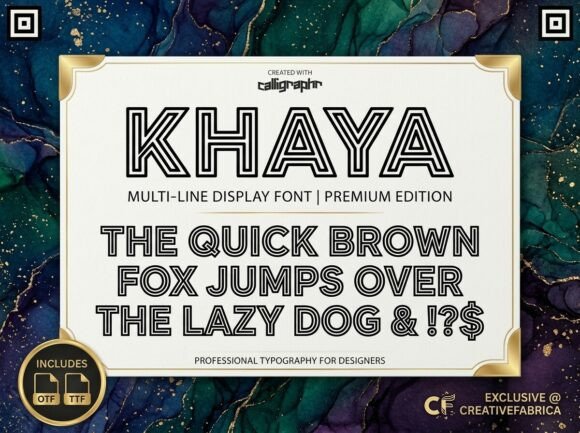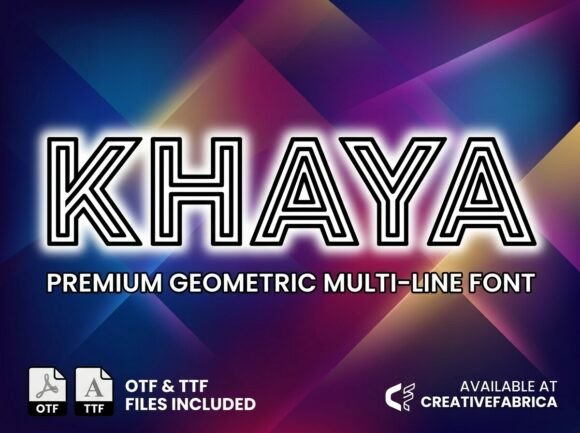
Introduction to Khaya Font
Navigate the intersection of sport and style with Khaya, a dynamic display typeface that captures a “competitive-and-linear” soul.
This font features bold, geometric letterforms characterized by a rhythmic triple-line inline texture that radiates energy and forward motion With its massive structural weight and athletic personality, Khaya is the premier choice for independent fitness branding, varsity sports apparel, automotive racing logos, and high-impact “speed-and-stamina” social media headers.
Key Features of Khaya Font
Why Choose Khaya Font?